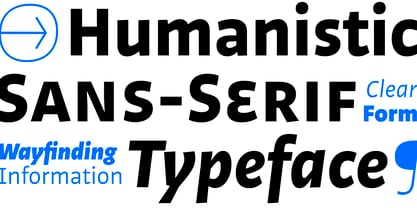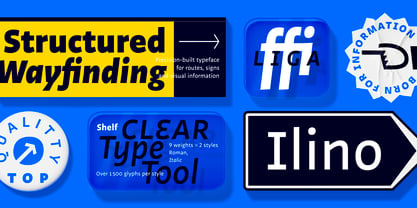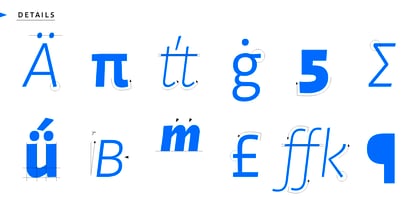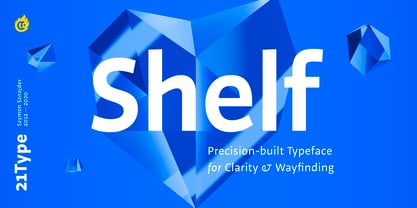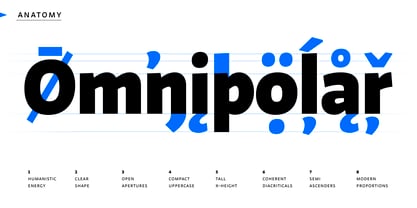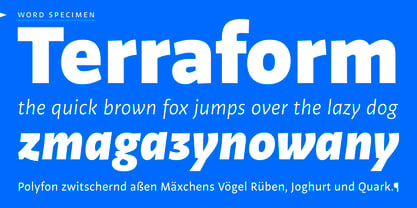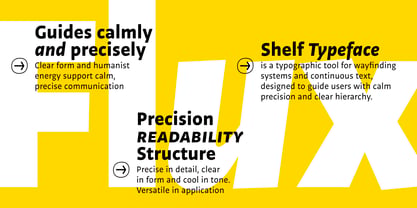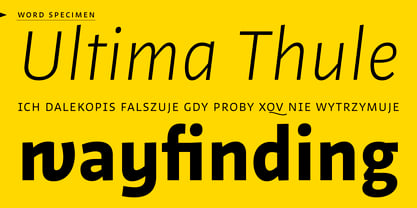
Shelf
Guides calmly and confidently
Shelf is a tool designed for visual information
systems that need to guide users calmly, consistently
and with a clear hierarchy of information.
Shelf is a humanist sans-serif typeface with a cool, rational character. Its restrained form draws inspiration from the landscape of ice shelves, a reference also reflected in the name of the typeface. Shelf was designed for clear visual information systems where legibility, order and calm guidance are essential.
Its proportions, letter construction and extensive character set make it suitable for both long-form text and projects that require a clear hierarchy of information. Shelf works well in exhibition identities, wayfinding systems, accompanying publications and other contexts where typography needs to organise content and support user orientation.
Each style includes more than 1,500 glyphs, including small caps, a full set of numerals, stylistic alternates, an extensive arrow system and OpenType features. Shelf supports a broad range of Latin-based languages and was prepared for demanding information, editorial and identity projects.